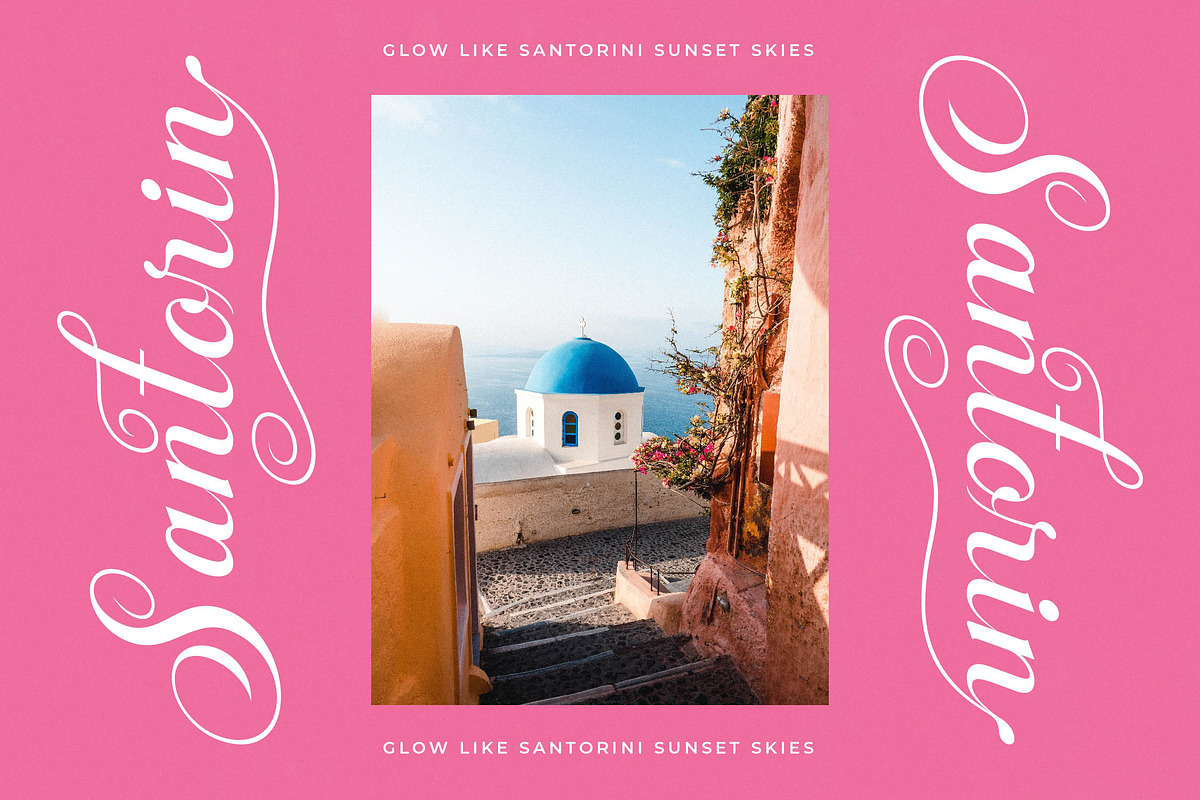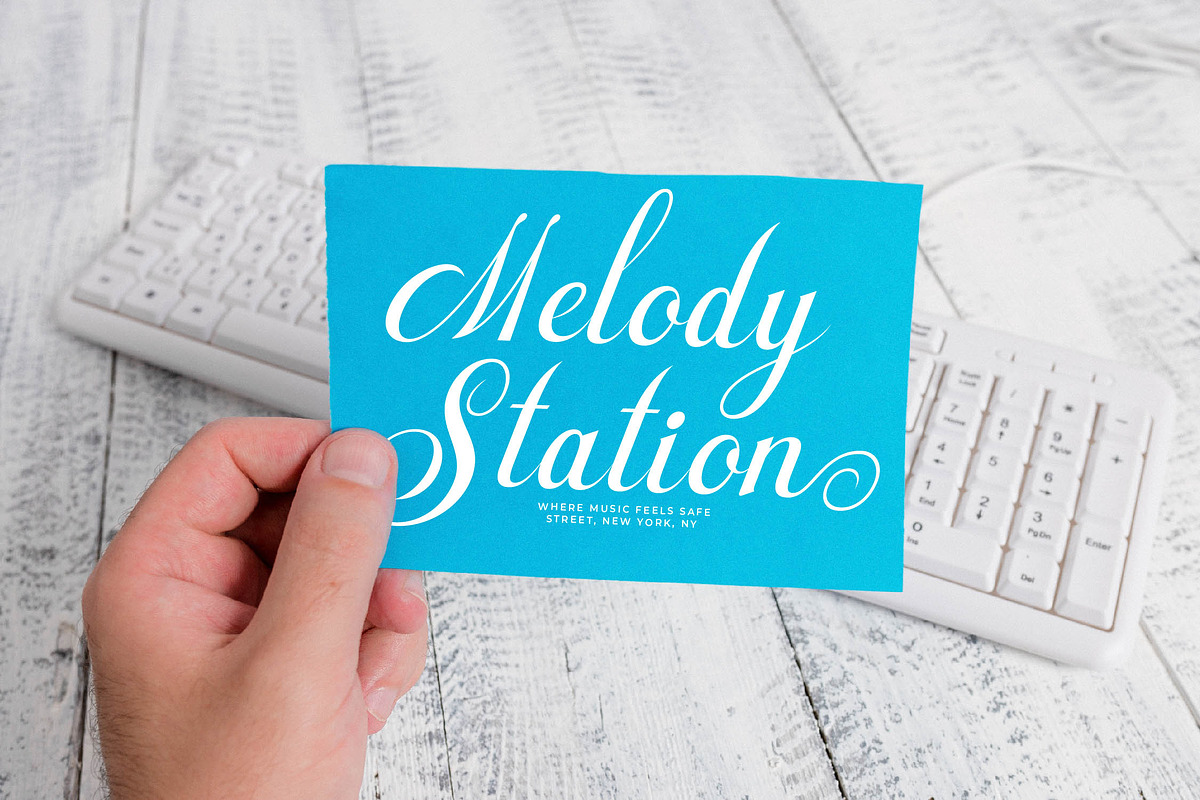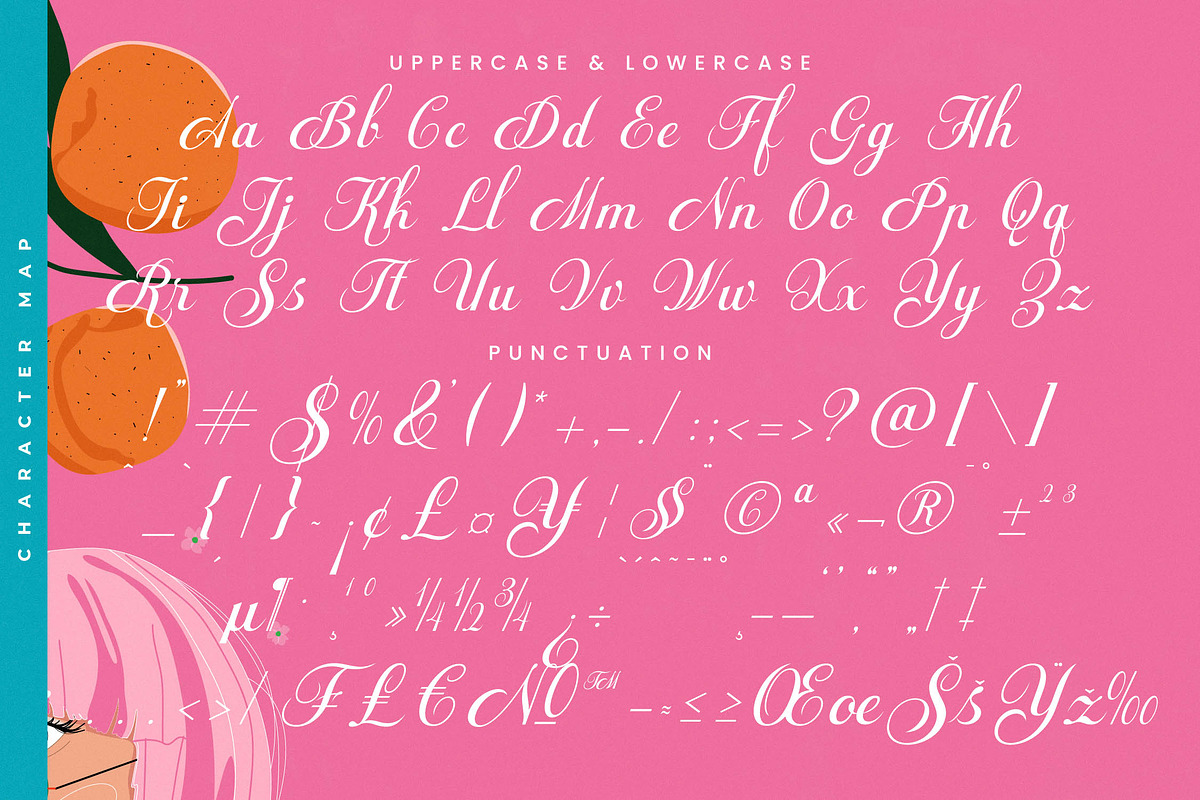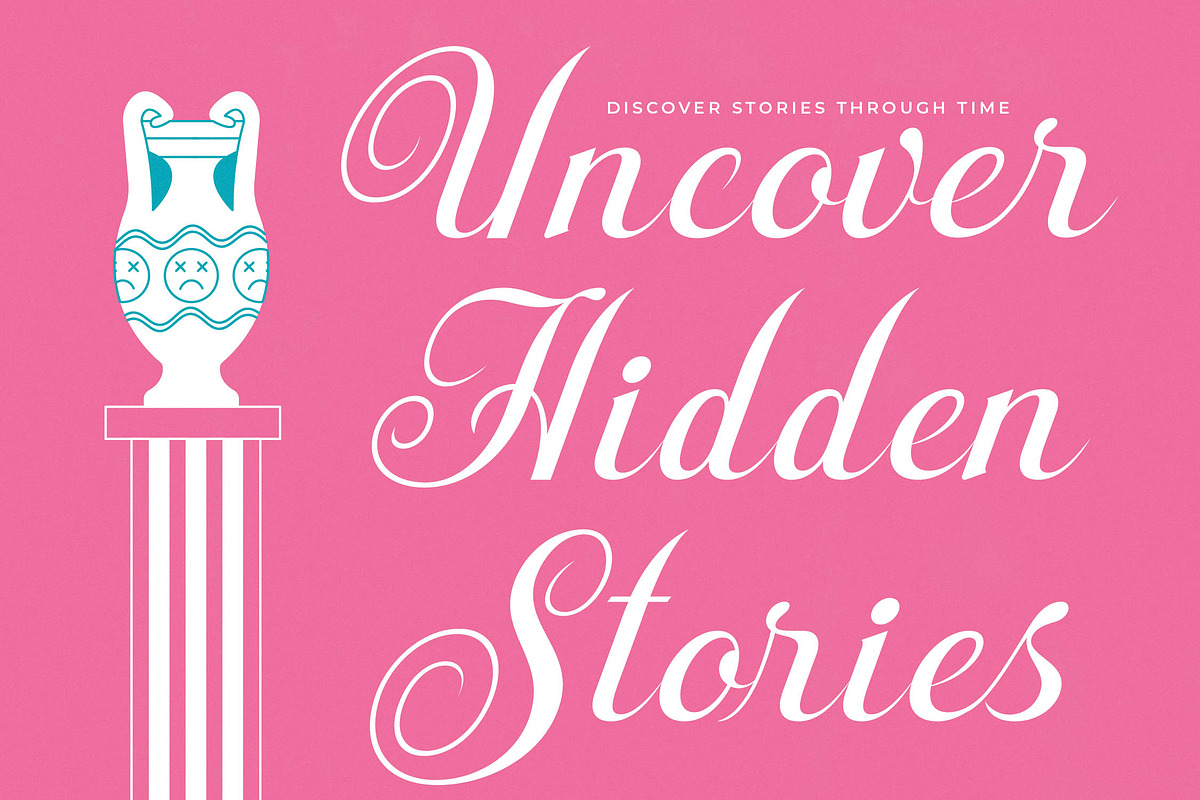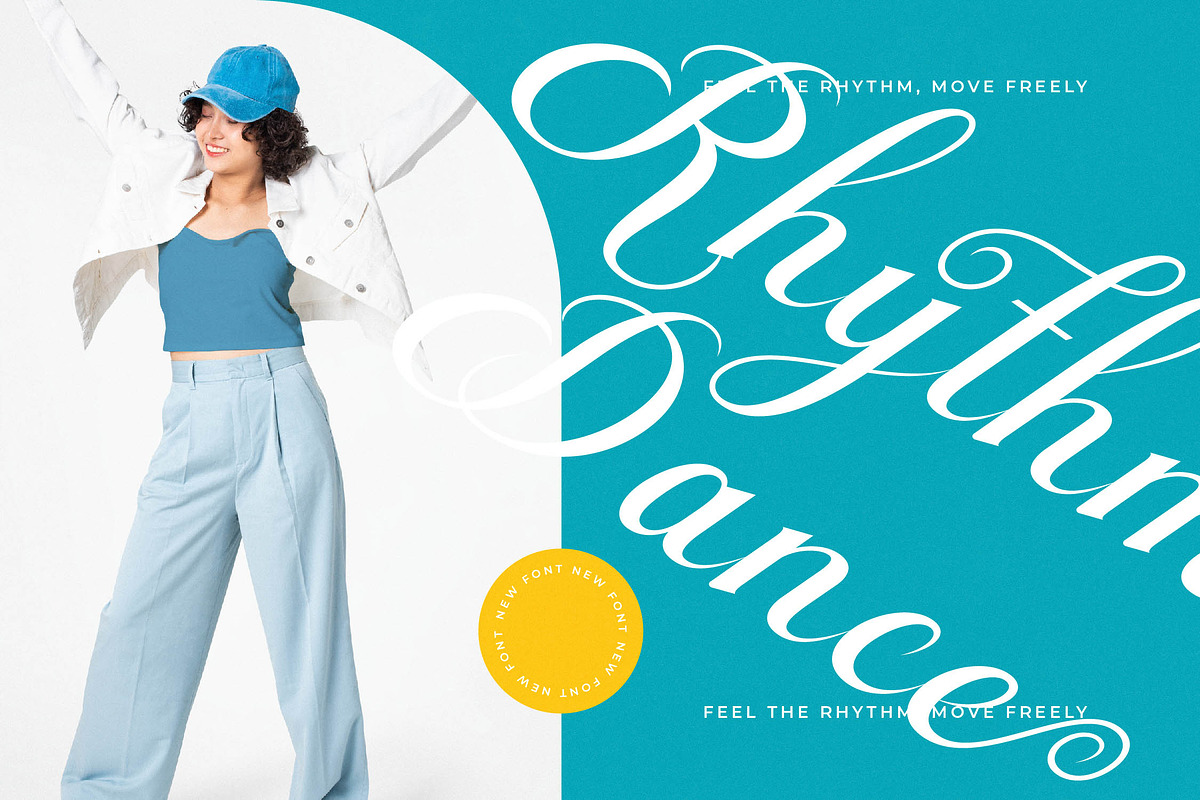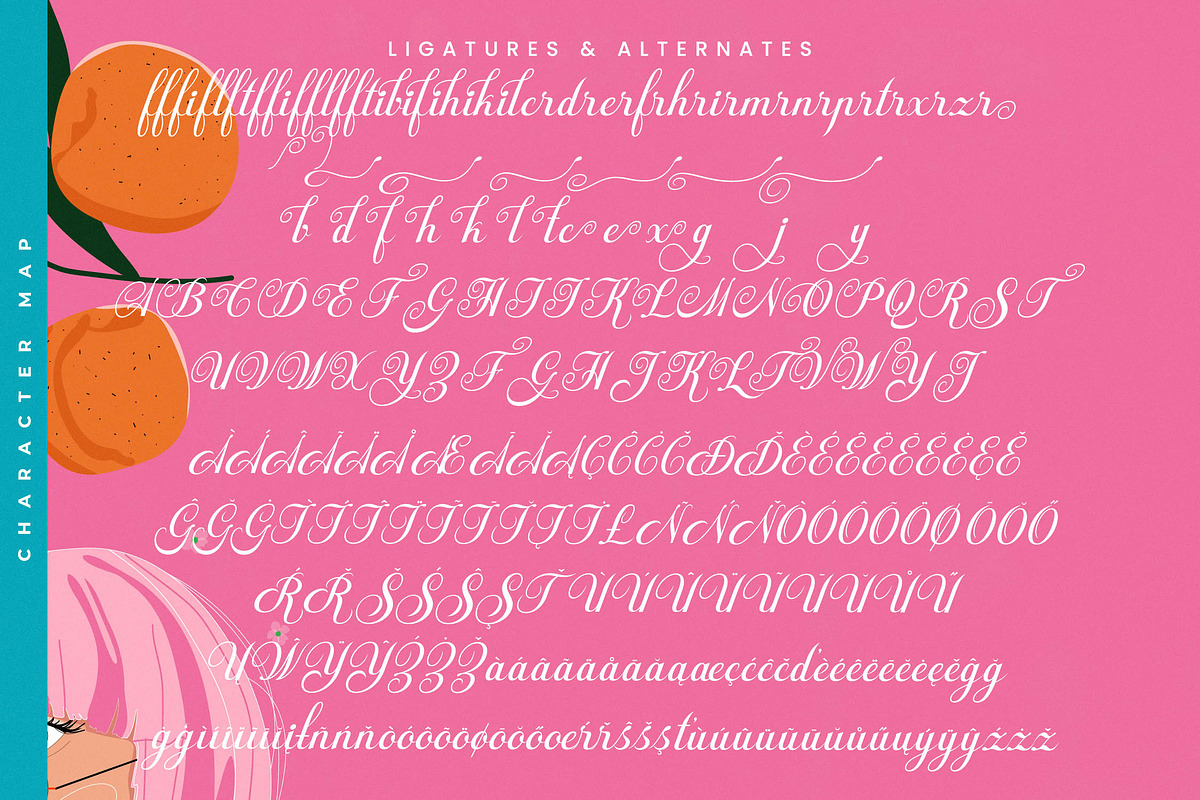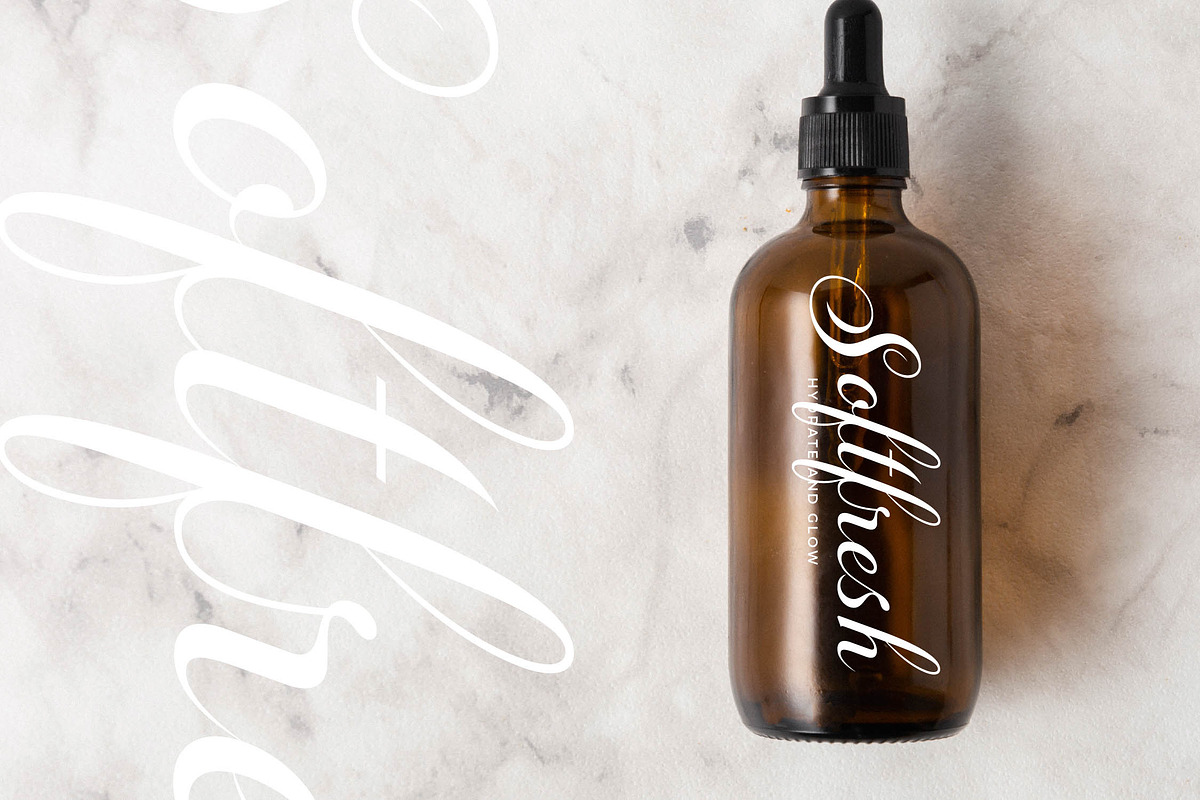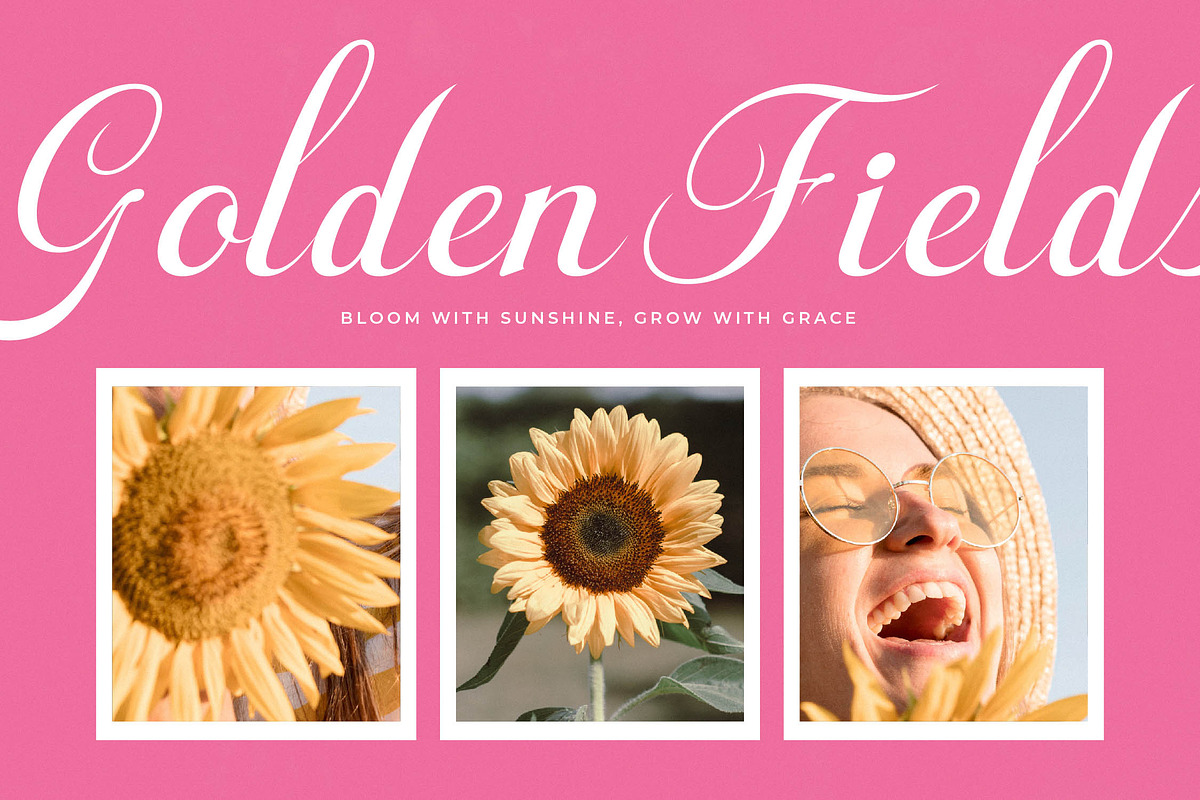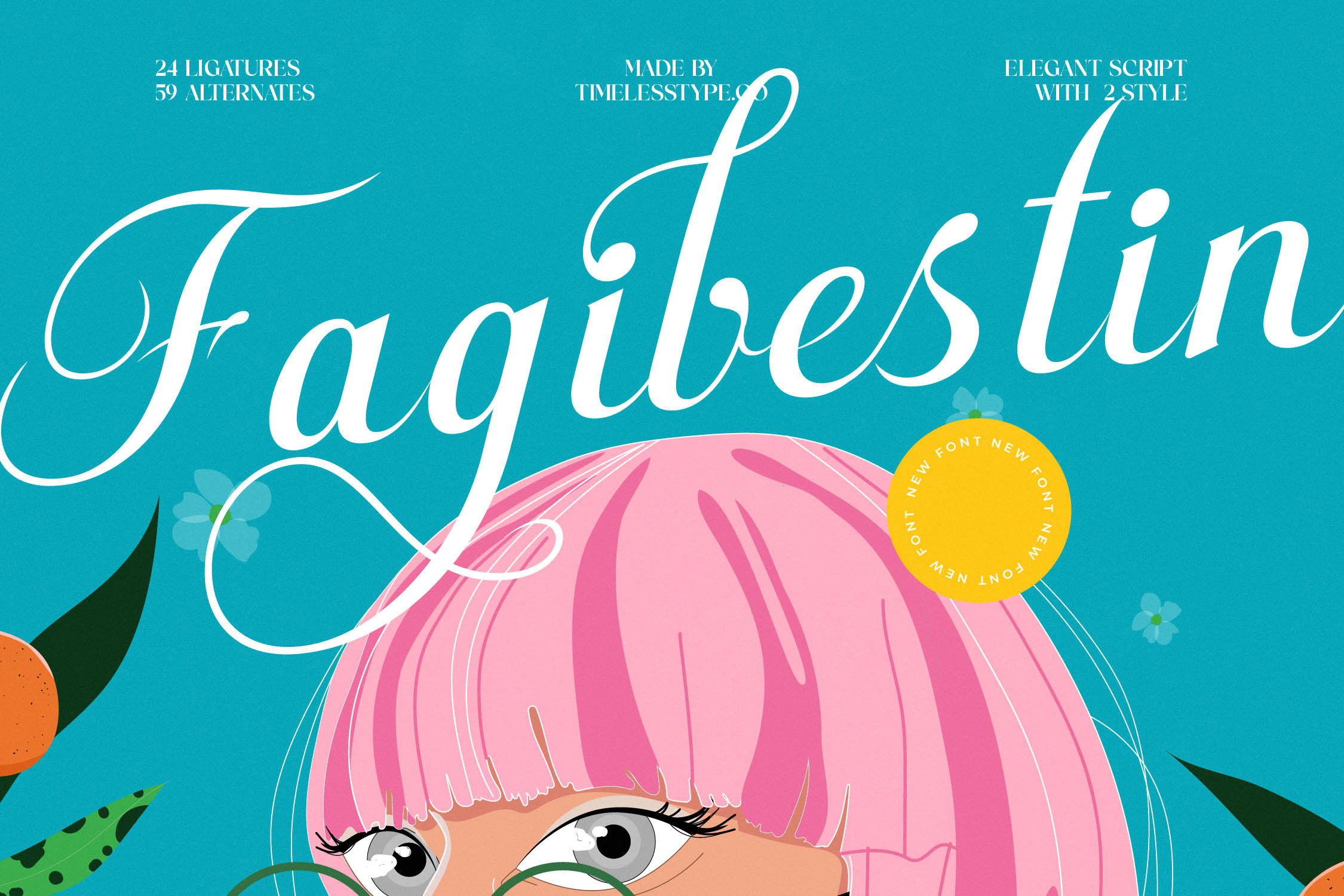
Fagibestin Elegant Script Font
Fagibestin is a masterclass in fluid elegance, designed to bring a touch of high-end sophistication to every stroke of your creative projects. This exquisite script typeface balances classic calligraphic roots with a contemporary flair that demands attention and exudes grace.
Drawing inspiration from timeless copperplate traditions and modern fashion aesthetics, this font captures a vibrant and refreshing atmosphere. It embodies the intimate beauty of handwritten correspondence while maintaining the sharp precision required for professional digital design and high-stakes marketing.
The personality of this typeface is rooted in its modern serif display sensibilities translated into a script form, offering a sense of luxury typography that feels both personal and curated. With its high-contrast serif elements and fluid motion, it serves as an essential editorial font for creators seeking a high branding impact.
Aligning perfectly with the modern serif trend, this typeface brings a fresh perspective to editorial display fonts by focusing on character-driven typography. It meets the current market demand for unique, expressive letterforms that break away from static styles to create a memorable visual narrative.
This versatile font is the ultimate tool for high-end logo design, cohesive branding identities, and polished editorial layouts. It shines in luxury packaging concepts, romantic wedding stationery, and fast-paced fashion lookbooks where impeccable style is absolutely paramount.
Packed with professional features, the typeface includes 24 ligatures and 59 alternates to ensure your text looks custom-made every time. It also features decorative swashes, full multilingual support, and a comprehensive set of international characters for seamless global implementation.
- Ligature 24 Alternate 59